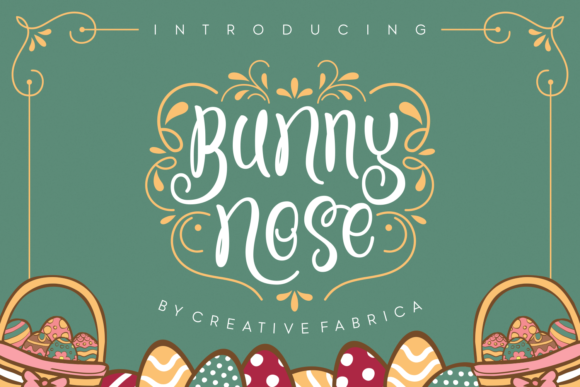
The Sweetest Easter Font: A Deep Dive into Bunny Nose
I’ll never forget the time I was working on an Easter-themed project for a client, and I just couldn’t find the perfect font. I scrolled through page after page of Google results, but nothing seemed quite right. That was until I stumbled upon Bunny Nose, a sweet handwritten Easter font that instantly captured the playful, springtime spirit I was looking for.
An Honest Review of Bunny Nose
So, what makes Bunny Nose so special? Let’s dive into the good stuff and a few quirks I’ve discovered while working with this charming font.
• ✨ Sweet, Handwritten Style: Bunny Nose has a delightful, hand-crafted feel that’s perfect for Easter and Spring-themed designs.
• ✅ Ease of Use: This font is incredibly easy to read and works beautifully in a variety of design contexts, from digital graphics to print materials.
• 💕 Playful Personality: The font’s playful, whimsical vibe instantly conveys the joy and wonder of the Easter season.
While Bunny Nose is an excellent font, there are a few things to keep in mind:
• 🤔 Limited Use Outside of Easter/Spring Context: While versatile, Bunny Nose is specifically designed for Easter and Spring-themed designs. It might not be the best choice for other types of projects.
• ⚠️ Glyph Limitations: As with any font, there may be limitations to the glyphs and special characters available. Make sure to review the font’s character set before committing to a project.
The Designer Inspiration Behind Bunny Nose
While the true story behind Bunny Nose might be a mystery, it’s easy to imagine that the designer was inspired by the simple joys of Easter and Spring. Perhaps they wanted to capture the magic of the season in a font that’s both playful and elegant. Whatever the inspiration, Bunny Nose is a delightful addition to any designer’s font library.
What type of projects is Bunny Nose best suited for? Bunny Nose is perfect for Easter and Spring-themed designs, including party invitations, Easter egg hunt posters, and spring-themed social media graphics.